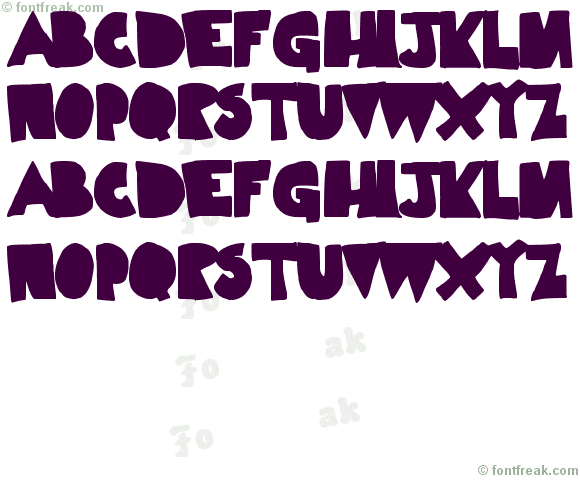
Limp Noodle
Limp Noodle by Pennyzine is a unique display font that captures attention with its playful and whimsical design. Characterized by its rounded, soft edges, this font exudes a sense of warmth and friendliness, making it perfect for a wide range of creative applications. The stroke weight is consistent, with a moderate contrast that enhances legibility while maintaining an inviting aesthetic. The spacing between characters is well-balanced, allowing for easy readability even at larger sizes. Limp Noodle’s decorative elements evoke a sense of fun, making it an ideal choice for projects that aim to engage and delight.
This versatile font shines in various use cases, including children's book covers, playful branding for cafes, and vibrant restaurant menus. Its lighthearted vibe makes it an excellent option for event flyers, especially those targeting a family-friendly audience. Additionally, Limp Noodle can be effectively utilized in social media graphics, helping content creators capture the attention of their followers with its unique charm. Small business owners looking to create a memorable identity will also find this font particularly appealing.
What sets Limp Noodle apart is its ability to balance fun and functionality. The font not only draws the eye but also ensures that messages are communicated clearly and effectively. Whether used in print or digital media, Limp Noodle offers a distinctive flair that can elevate any design project.